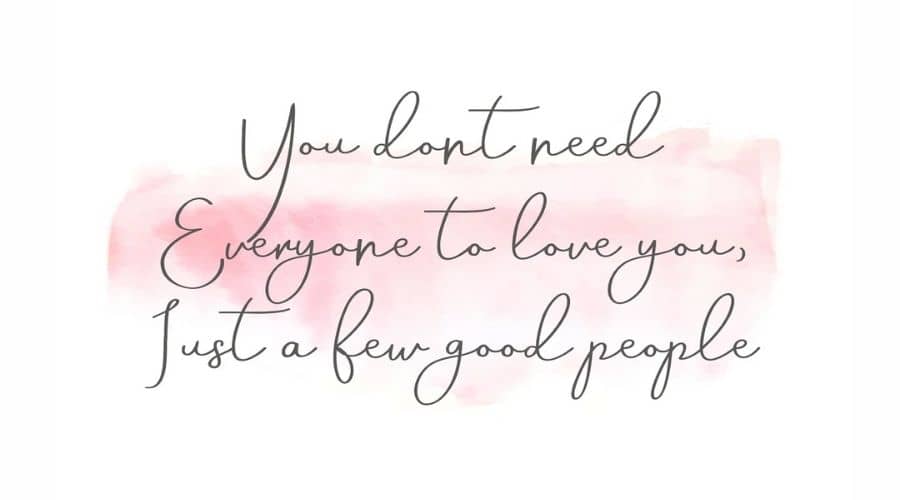
Aneisha Script Font
Aneisha Font is a new typeface. Aneisha is a contemporary calligraphy font. The font is designed and published by Mr Letters. The font is uploaded on July 25, 2018. Aneisha Script Bold is the ideal font for all of your creative projects. Regular is the subfamily. Aneisha Script Bold is solely available for personal use. The typeface is available in two different formats: OTF and TTF. You must first extract the fonts from the ZIP or RAR file before installing them. Windows 10/8/7 (64-bit) By right-clicking on the Font, you may install it. OS X (Macintosh Operating System) is a computer operating system developed by Apple.
To install the Font, double-click it. From the drop-down option, choose “Install font.” The Font is compatible with Windows, Apple/Mac, Linux, Cricut, Silhouette, and other cutting machines. The lovely typeface can easily be turned into a web font. This Font is great for vibrant and unusual projects since it is smooth and curved, angular and elegant.
Aneisha Script Bold may be used to create unique designs, covers, shop and store names, and logos. Aneisha Script Bold is also ideal for branding projects, homeware designs, product packaging, and as a classy text overlay on any backdrop image. The font is ideal for branding, wedding invitations, magazines, mugs, business cards, quotes, posters, and more. You can preview the font before purchasing it. Aneisha comes in a variety of styles, allowing you to choose the one that best suits your needs.
Aneisha Script Font View